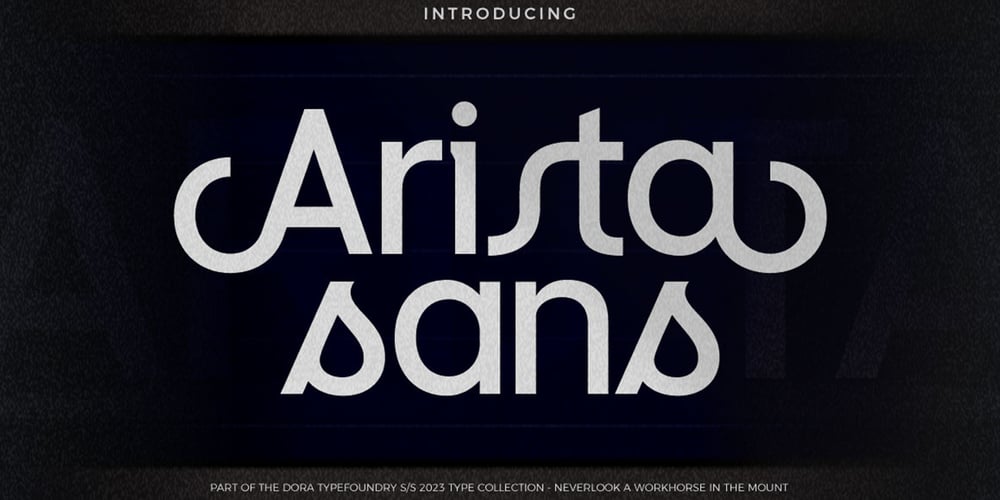
Arista Sans Font Family was designed by Zahratul Laila and published by Dora Typefoundry. Arista Sans contains 2 styles and family package options. Arista Sans is a true sans serif typeface enhanced with bold, high-contrast geometric shapes.Arista is perfect if you want to try to make your presentation perfect for all purposes, social media graphics or other designs. And of course you can use this font and pair it well with a bold sans serif.Features: All Caps Font with different uppercase and lowercase Number & Symbol Supported Languages Alternates and Ligatures PUA Encoded What is included: Arista Sans Regular Arista Sans Outline We highly recommend using a program that supports OpenType features and Glyphs panels like Adobe apps and Corel Draw, so you can see and access all Glyph variations.This type of family has become the work of true love, making it as easy and fun as possible.I really hope you enjoy it!if you have any questions or problems please contact email:doratypefoundry@gmail.comThank you Enjoy the font and go get creative ๐